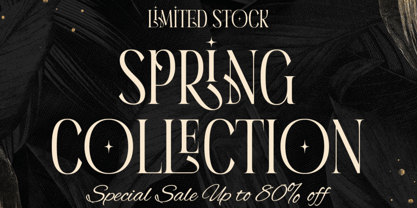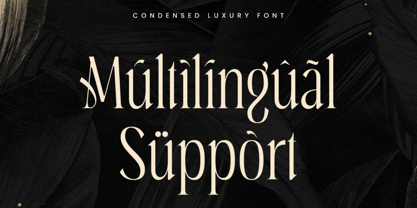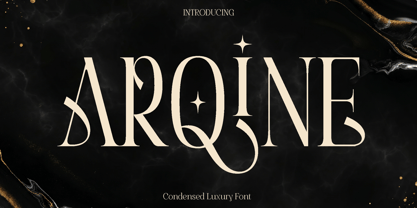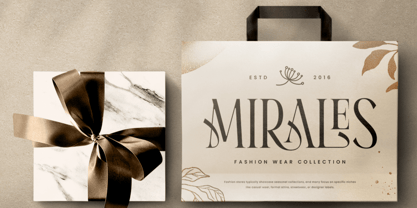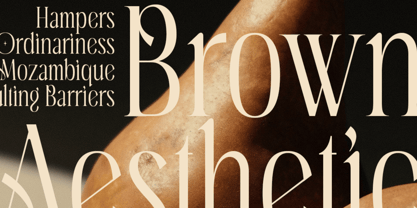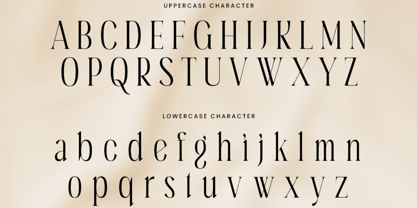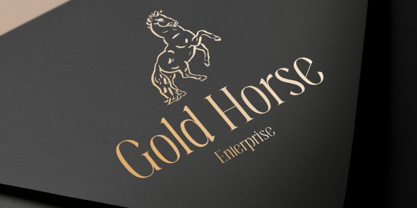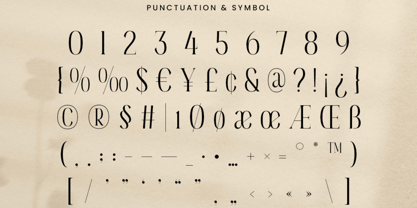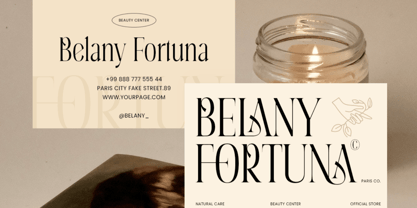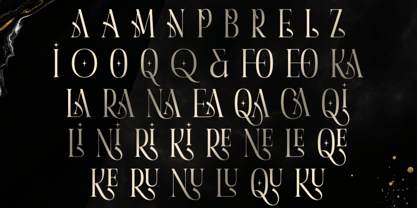
Arqine
The Arqine Font Family was designed by Olivia Love and published by Only Fonts. Arqine contains 1 styles. More about this family
Arqine – Condensed Luxury Font Arqine is a refined condensed luxury font designed to express elegance through precision and modern simplicity. Inspired by high fashion typography and premium editorial design, Arqine features narrow, carefully balanced letterforms that create a sleek and sophisticated visual rhythm. Its structure is crafted to deliver a strong presence while maintaining clarity, making every word feel intentional, polished, and exclusive. This font is perfect for projects where space and impact must work together. Arqine excels in branding, luxury logos, magazine headlines, fashion campaigns, upscale packaging, and refined promotional materials. Its condensed form allows designers to create bold, eye-catching titles without overwhelming the layout, making it especially powerful for editorial compositions and modern brand identities. Arqine carries a confident and elegant tone. The subtle curves and clean lines give it a contemporary feel, while its proportions maintain a timeless sense of class. It adapts seamlessly across print and digital designs, offering versatility for both corporate and artistic applications. Whether used for minimal layouts or expressive visual concepts, Arqine enhances your work with a premium and memorable aesthetic. Designed for creatives who value sophistication and detail, Arqine transforms typography into a statement of style. It brings a sense of luxury and refinement that elevates any project it touches. Arqine Condensed Luxury Font Features: • Sophisticated and stylish characters • Luxury ligature character collections • Unique punctuation, numbers, and symbols • Uppercase and lowercase • OpenType features • Multilingual support for 50 plus languages